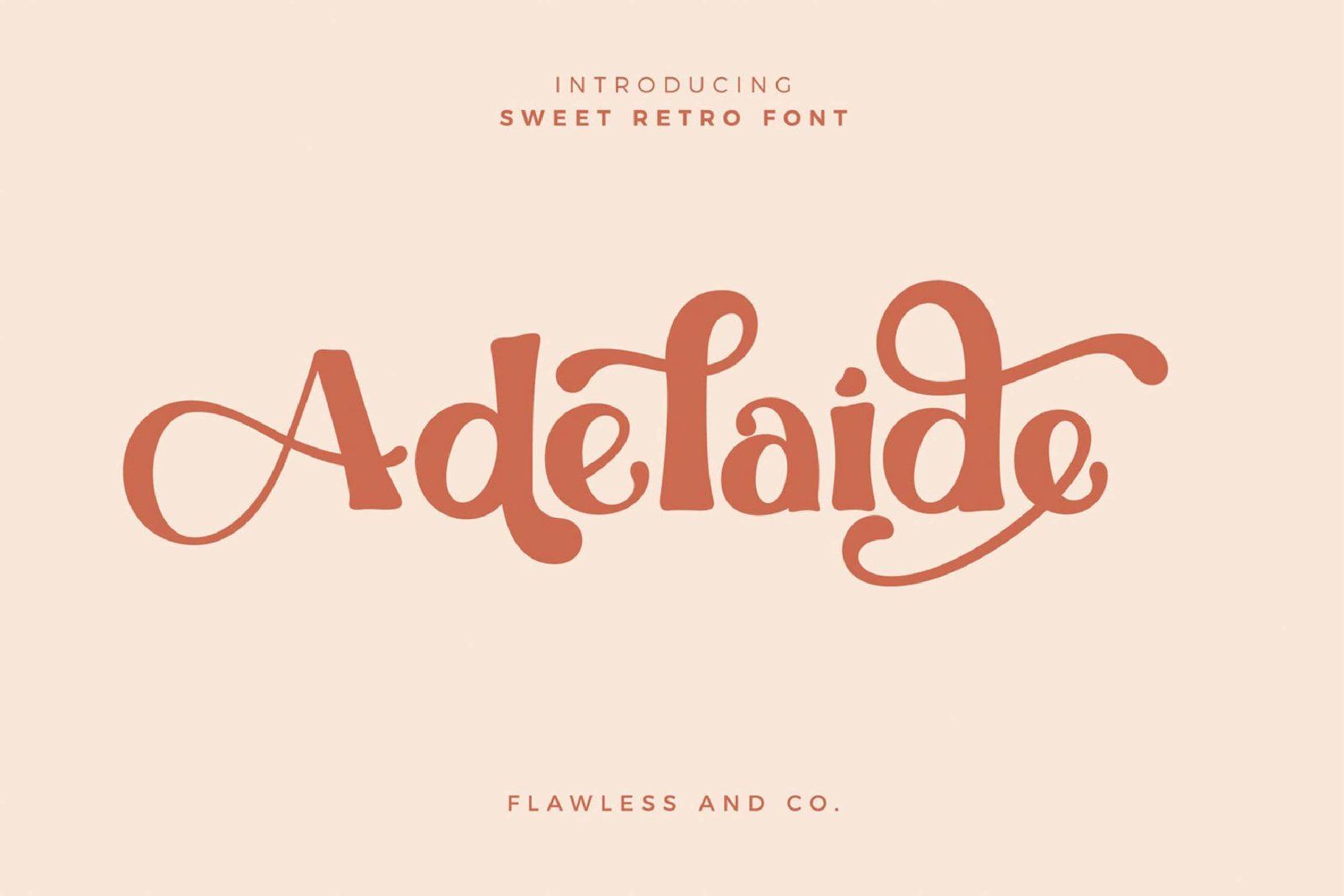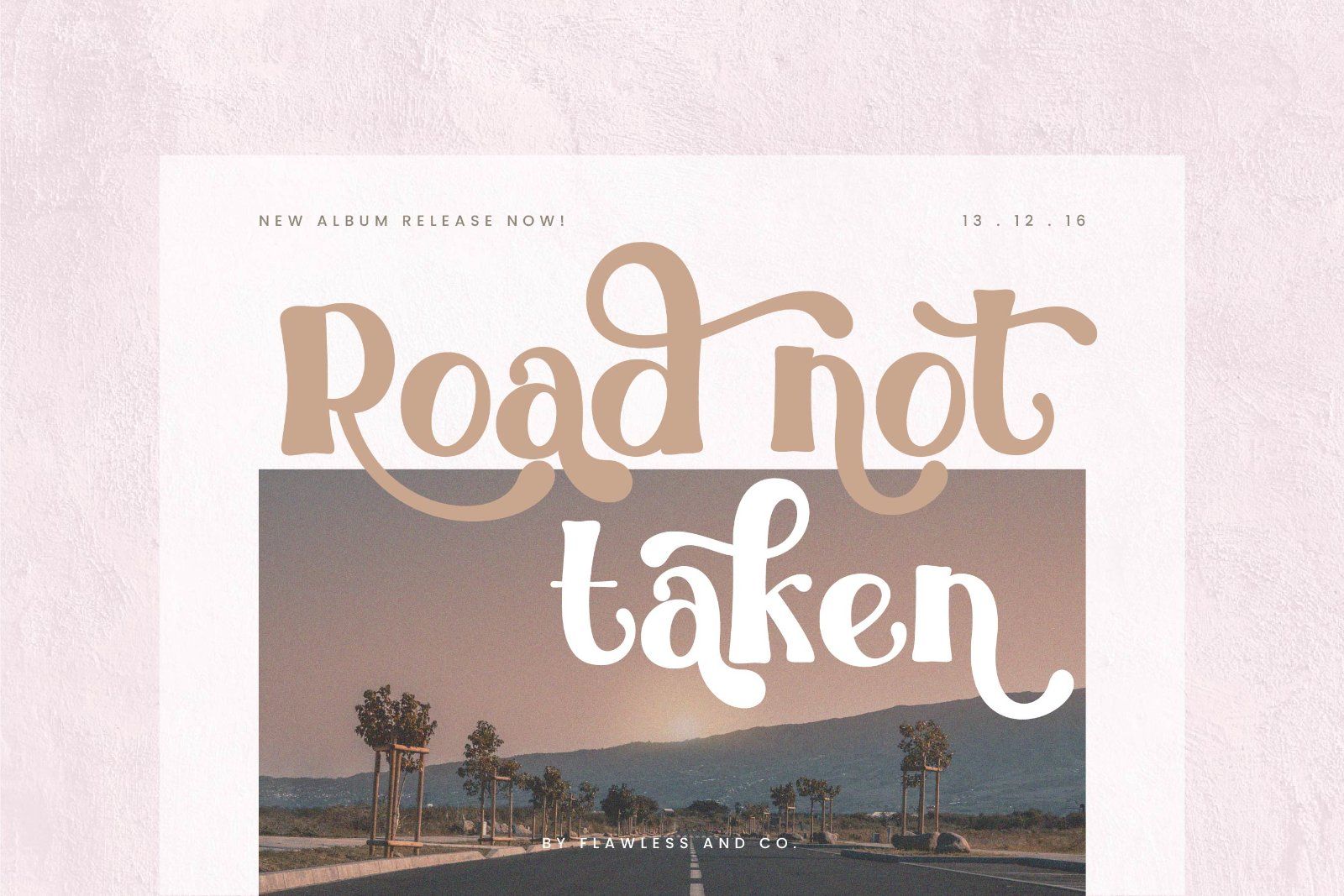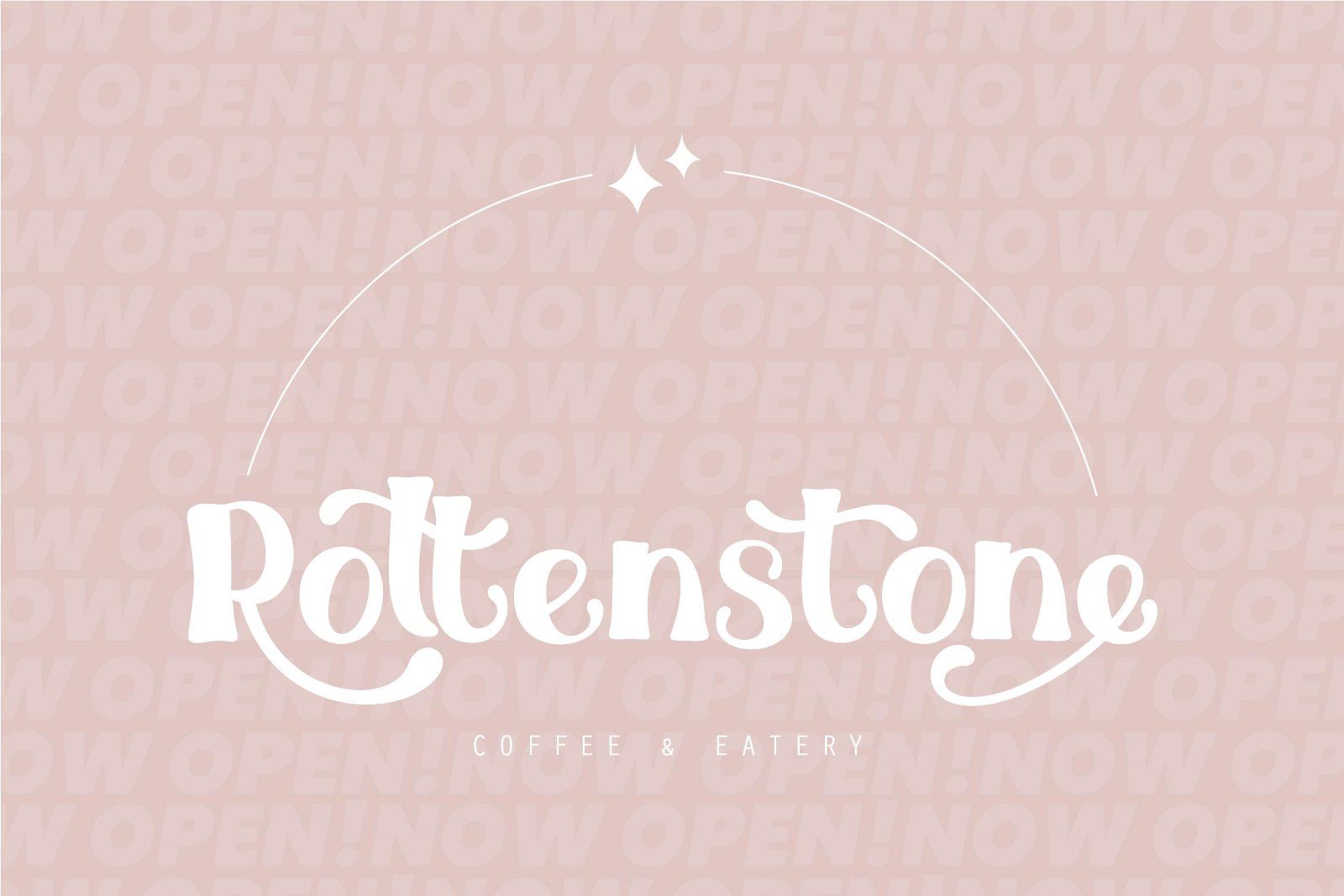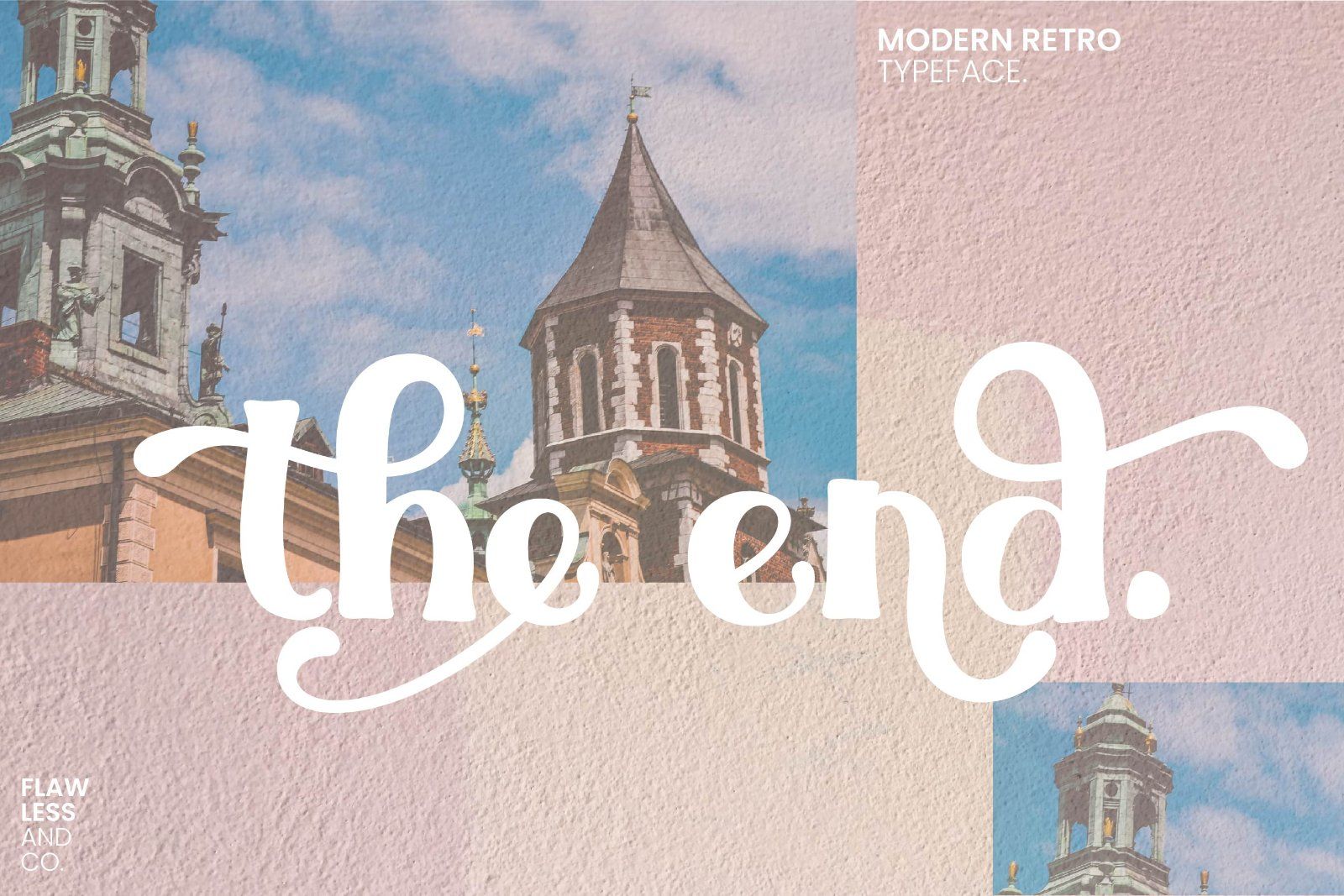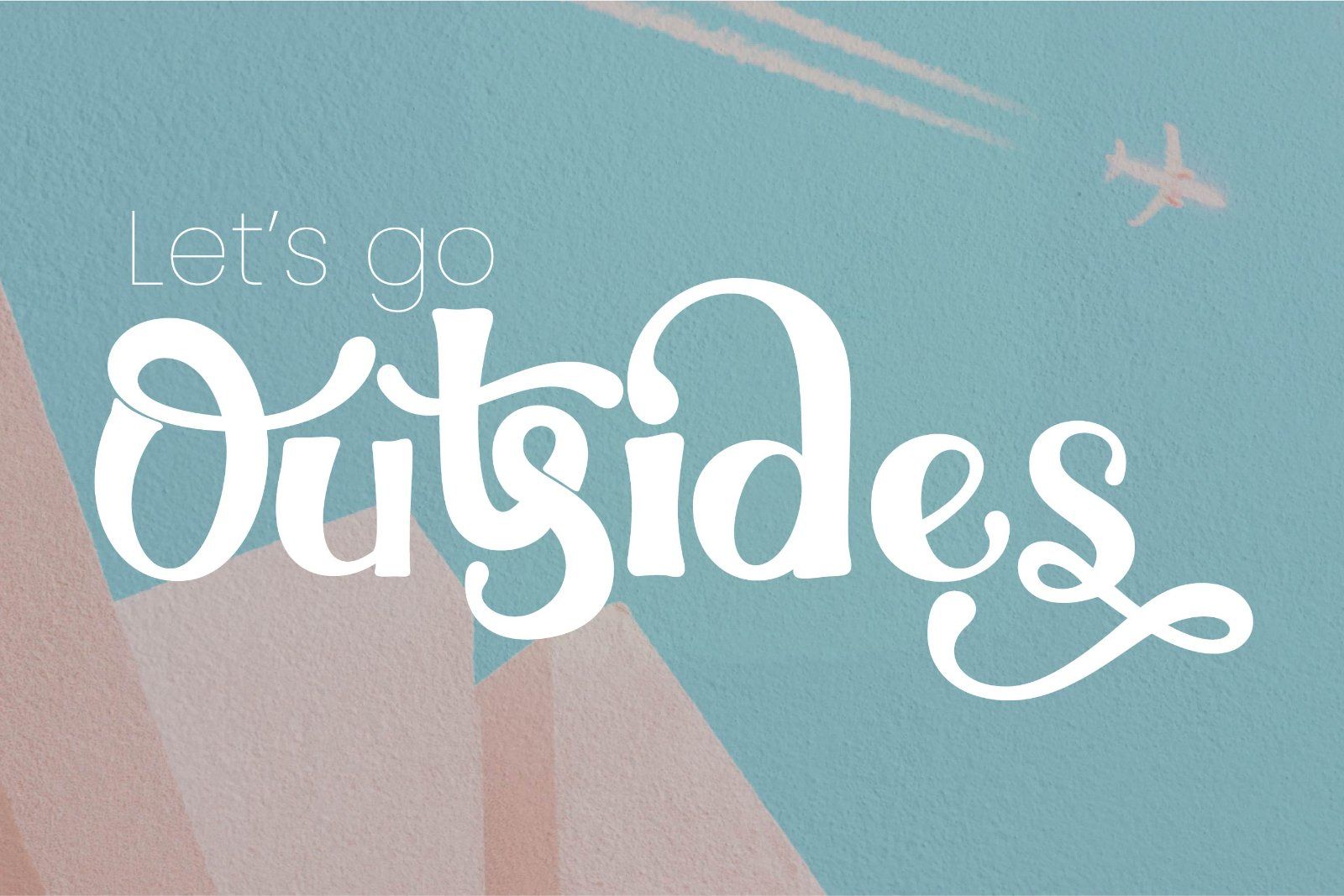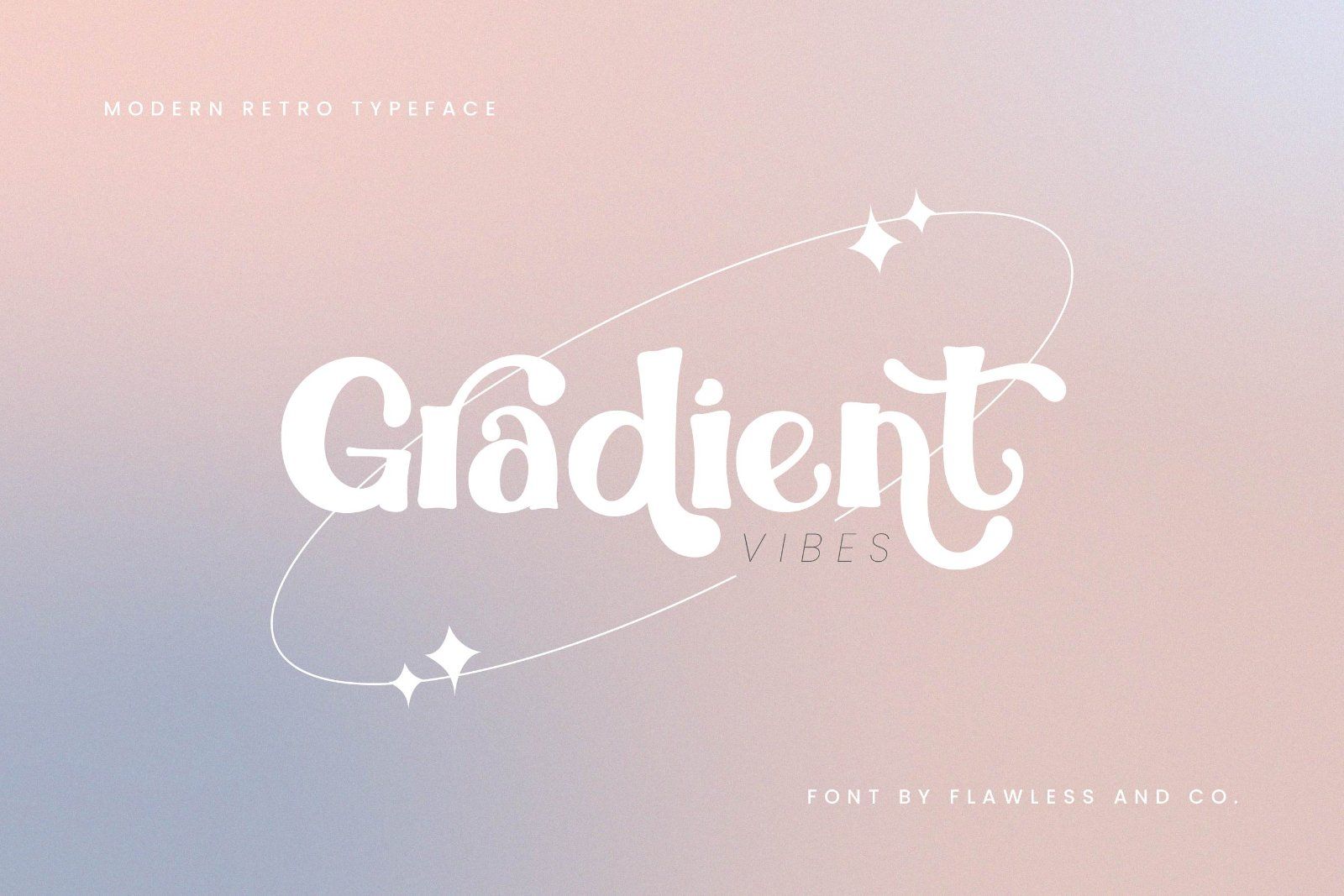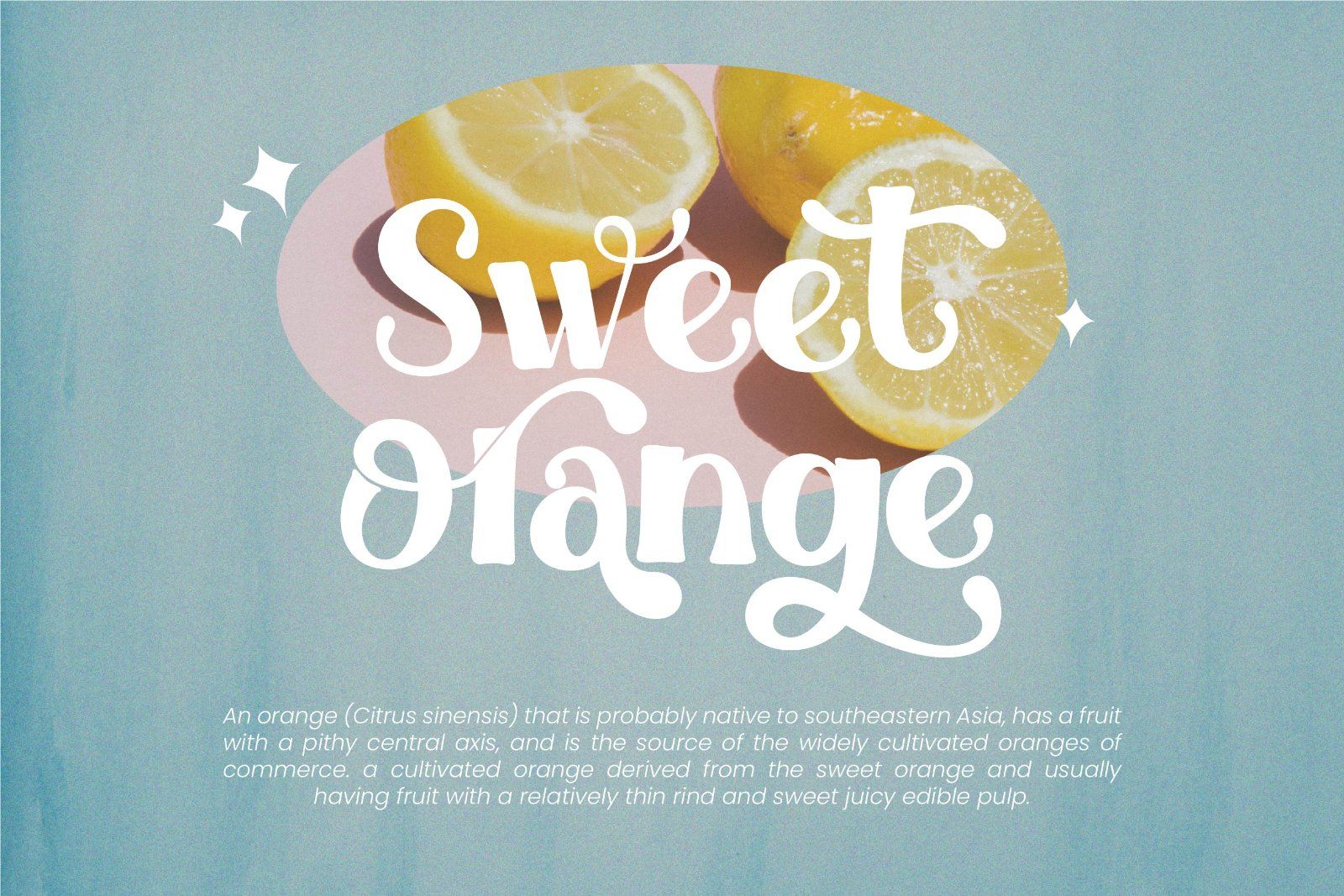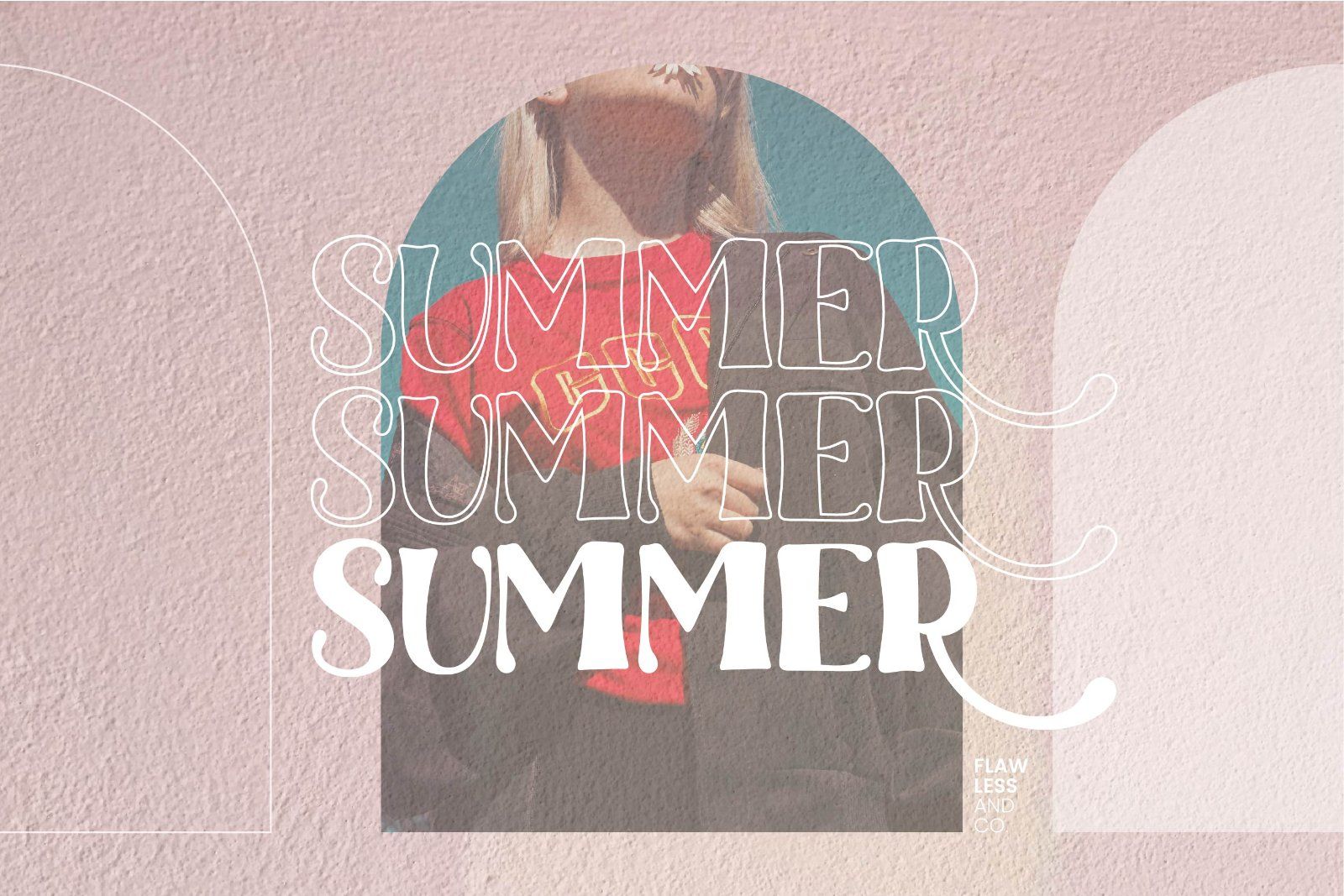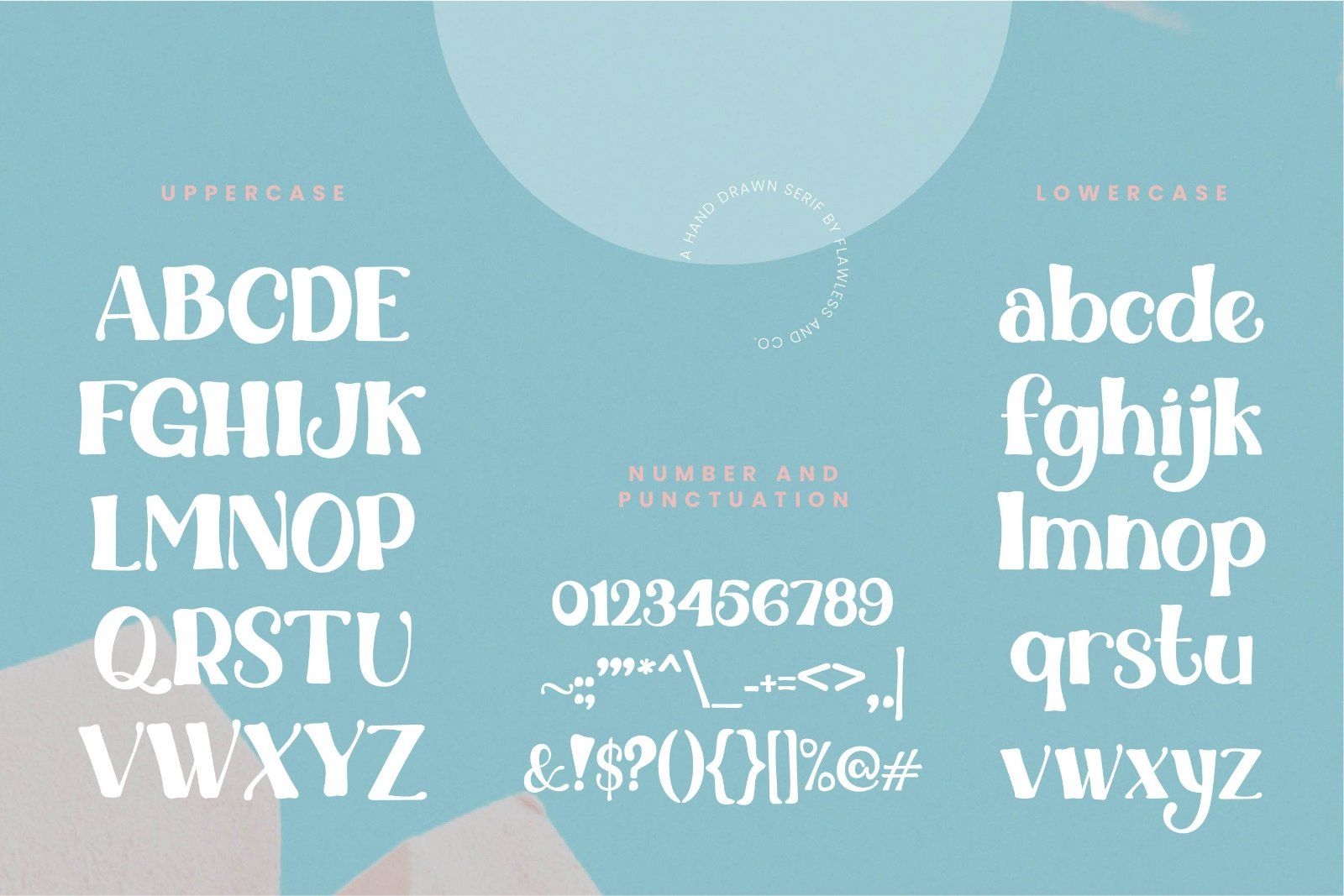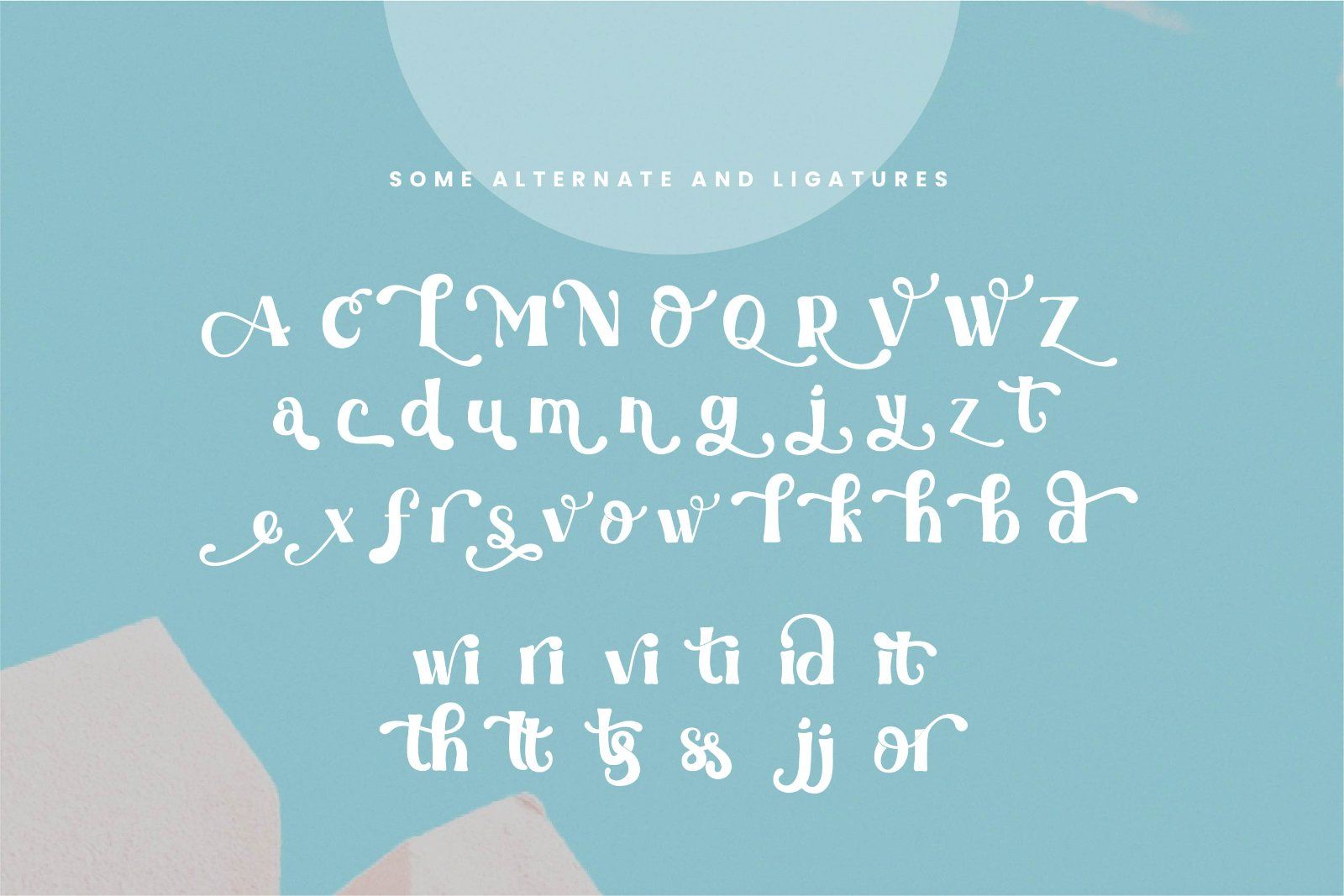
Adelaide is a stylish retro display font that blends playful vintage charm with a unique and expressive personality. Featuring smooth curves, distinctive letterforms, and elegant swashes, Adelaide brings a warm nostalgic feel while maintaining a fresh and contemporary look. Its unique shapes and flowing details make it perfect for eye-catching designs that need a touch of personality and retro flair.
• Uppercase alphabet A-Z
• Lowercase alphabet a-z
• Alternate Character
• Numbers 0-9
• Some punctuation